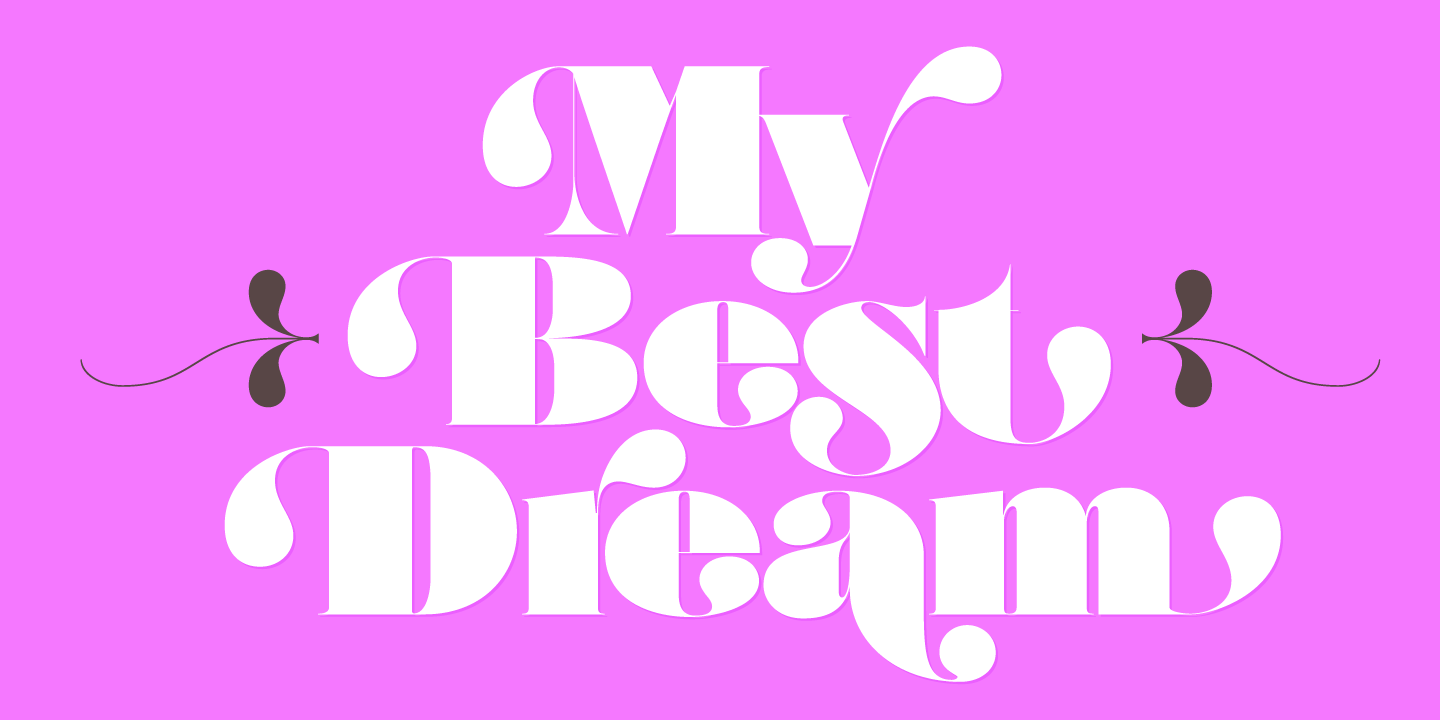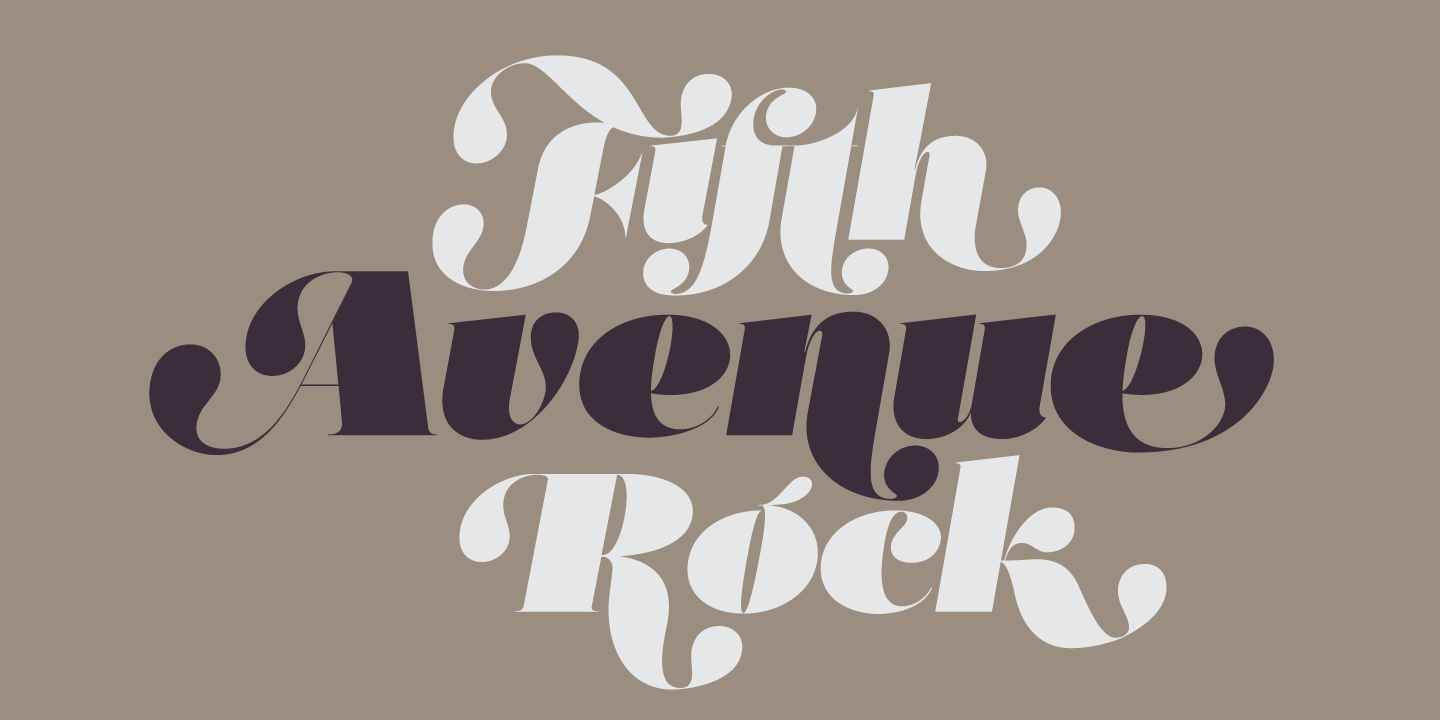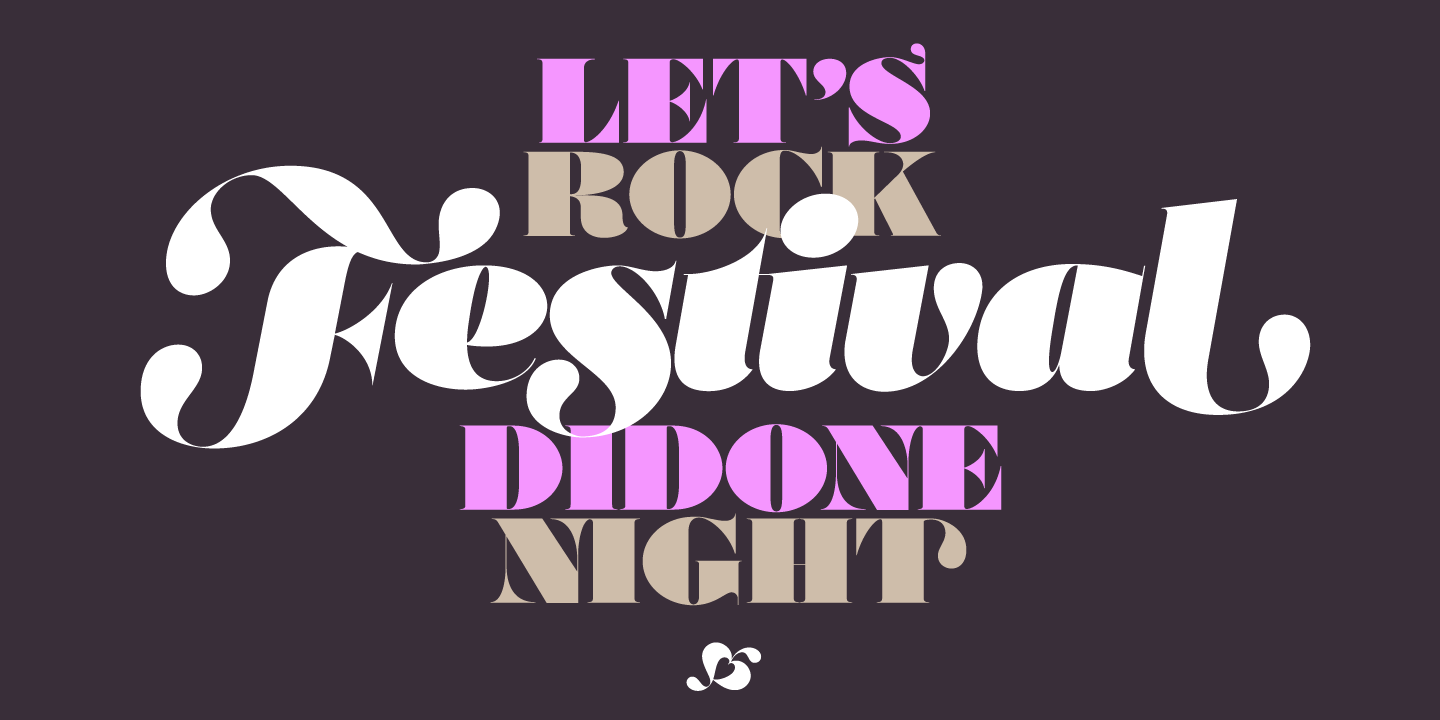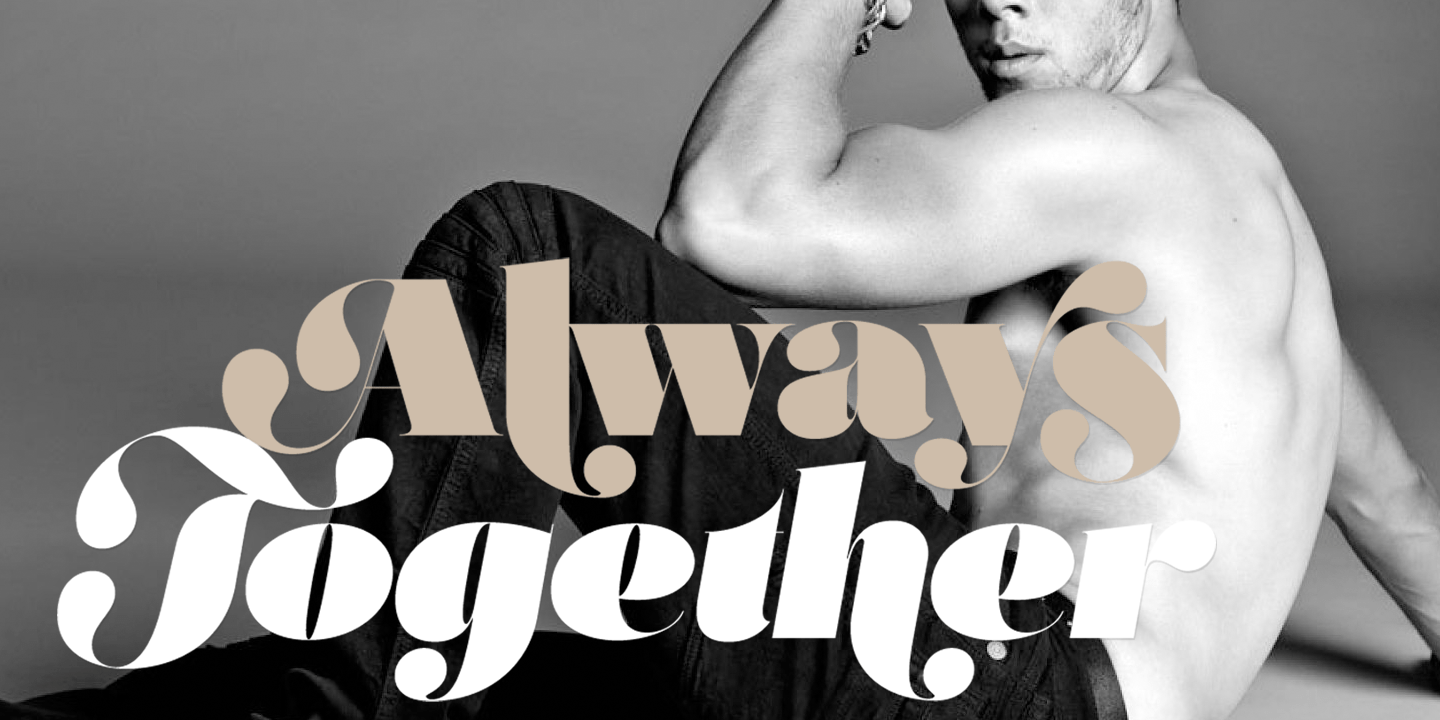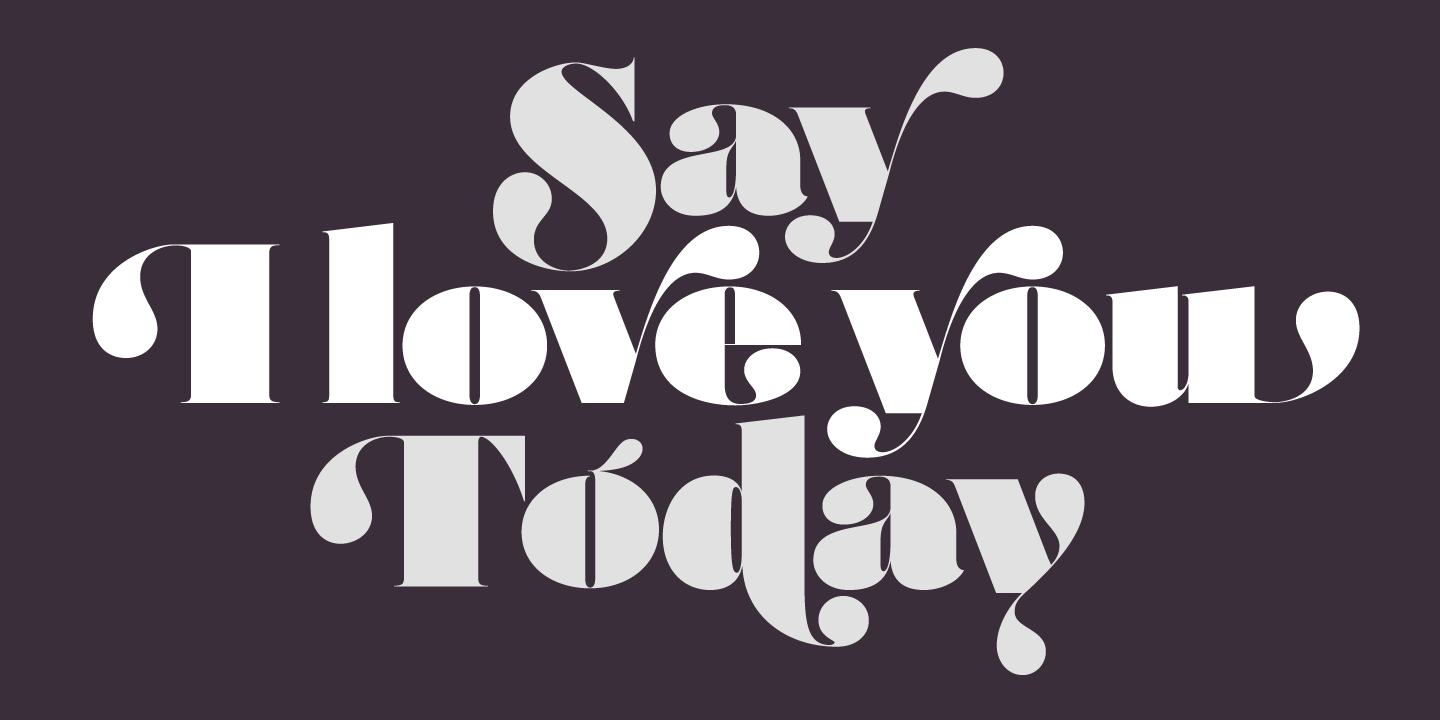
About Posh
I\’ve always been in love with fat didones. That\’s the reason of Posh. In search of something unique, I started this family back in 2013 with the aim of creating the fattest yet readable bodonian typeface in the market: It was a challenge, because roman…